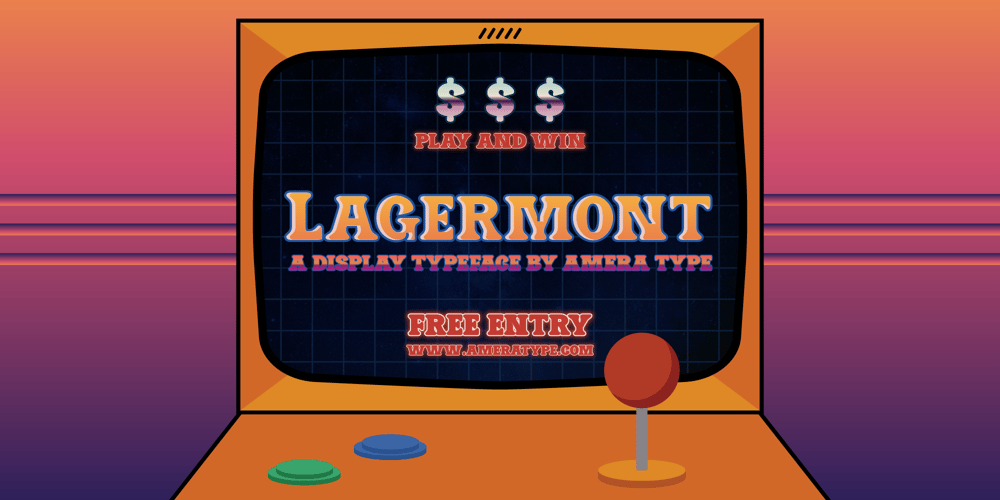
AT Lagermont Font Family was designed by Cahyadi Ikhsan and published by Amera Type. AT Lagermont contains 1 styles and family package options. Lagermont is inspired by console games, labels and print media from the 19th century. With a strong and bold serif font style comes with an elegant, where every curve is made very gracefully and gently. It will be a perfect choice for graphic design, clothing, books, logos and many other visual displays